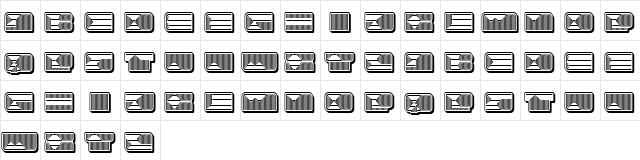
Turkish 3D Inverted Regular
Design Context for Turkish 3D Inverted Typeface
Turkish 3D Inverted is a composed and adaptable typeface that performs quietly and consistently across a wide range of design contexts.